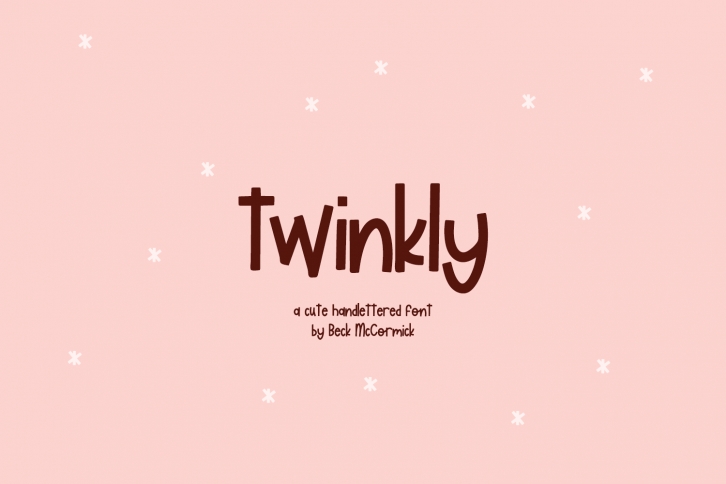
Twinkly is a fun and cute handwritten font. Whether you’re using it for crafts, digital design, presentations, or making greeting cards, this font has the potential to become your favorite go-to font, no matter the occasion!